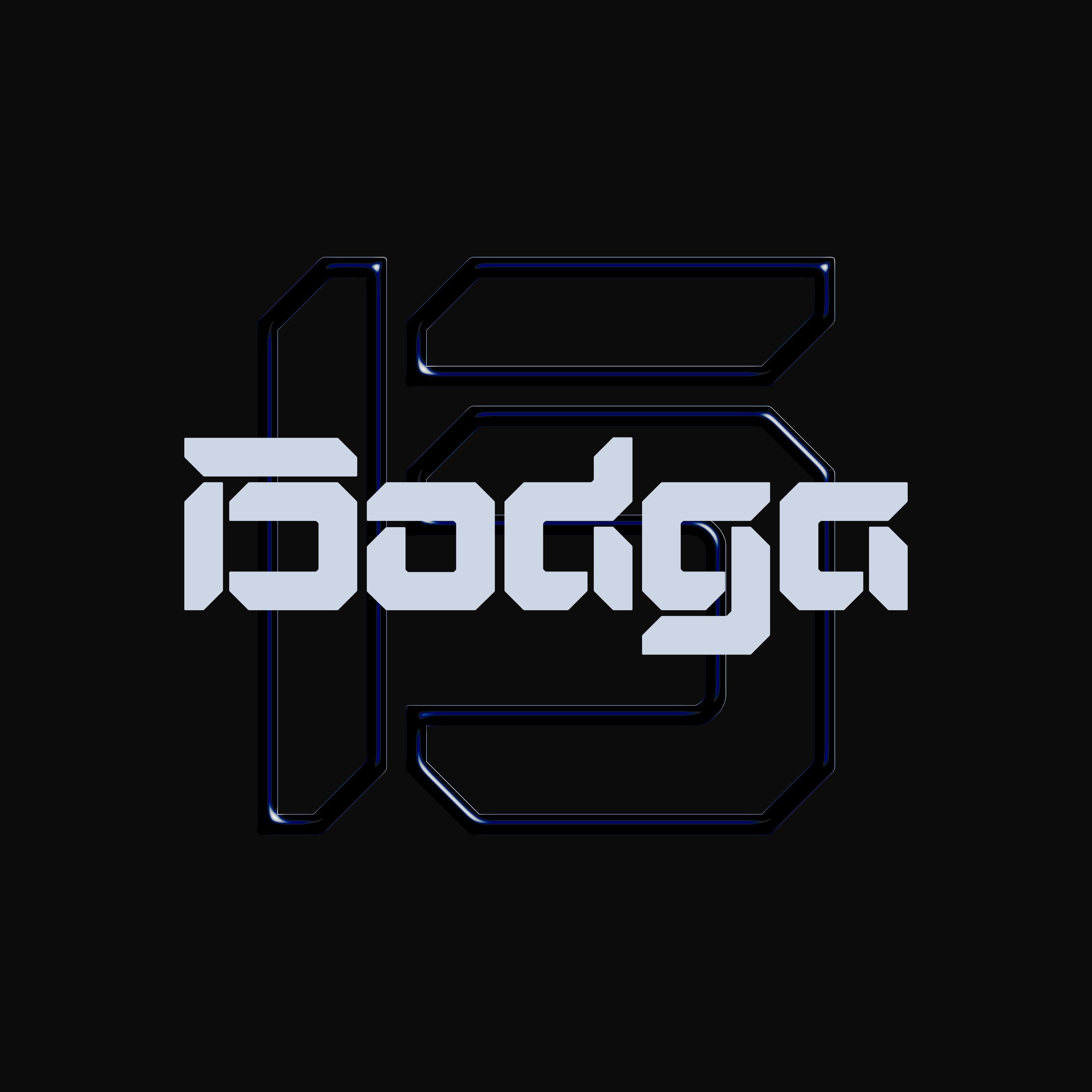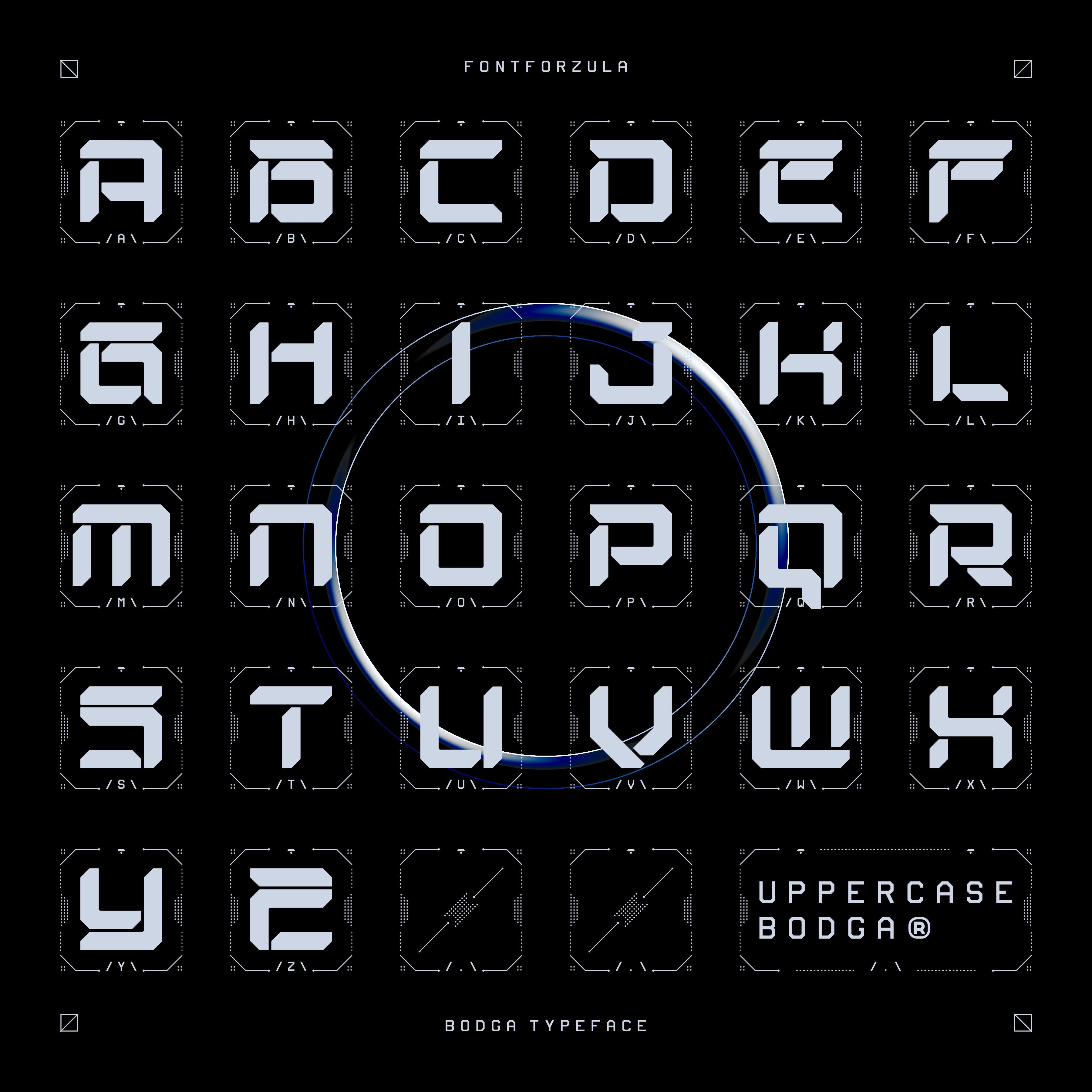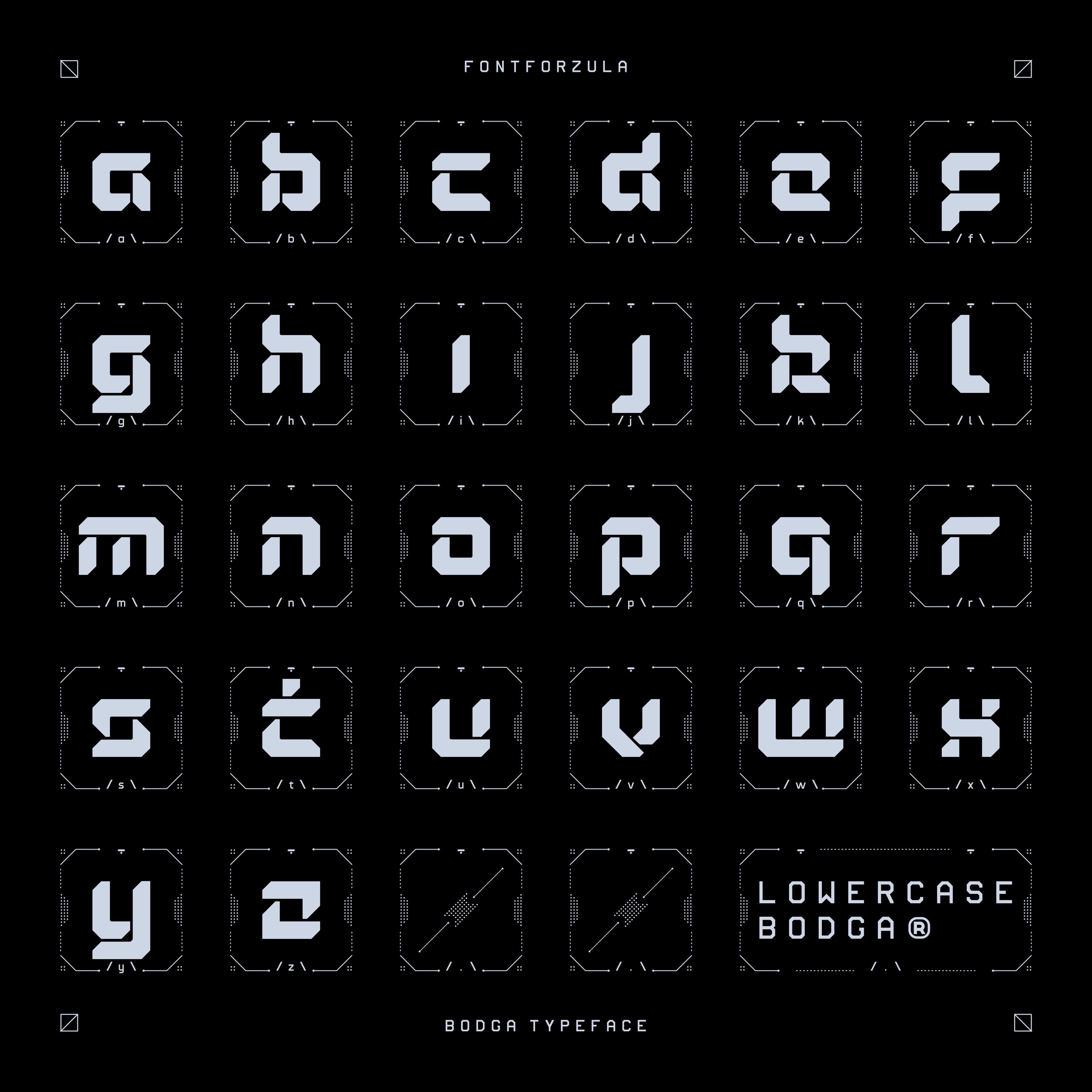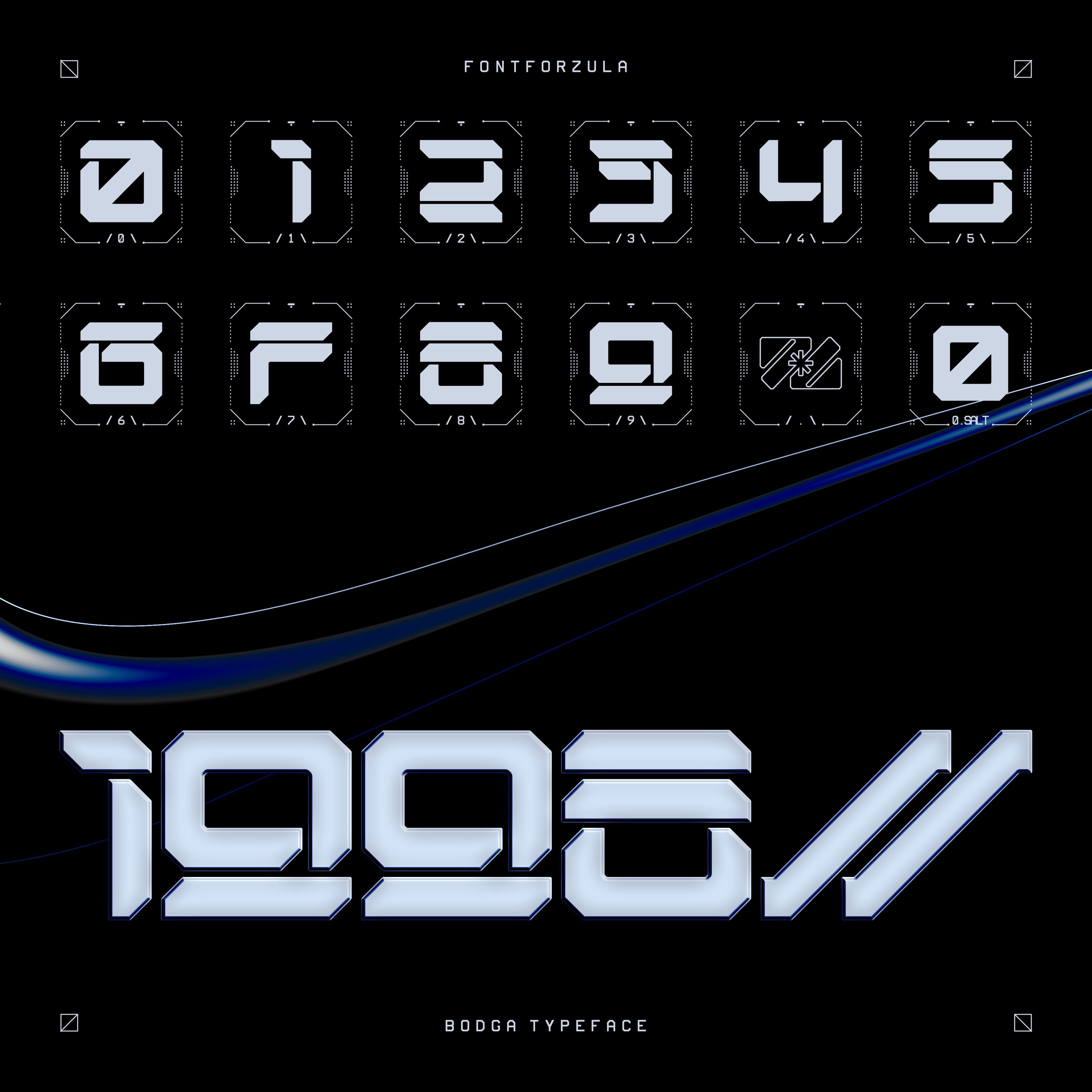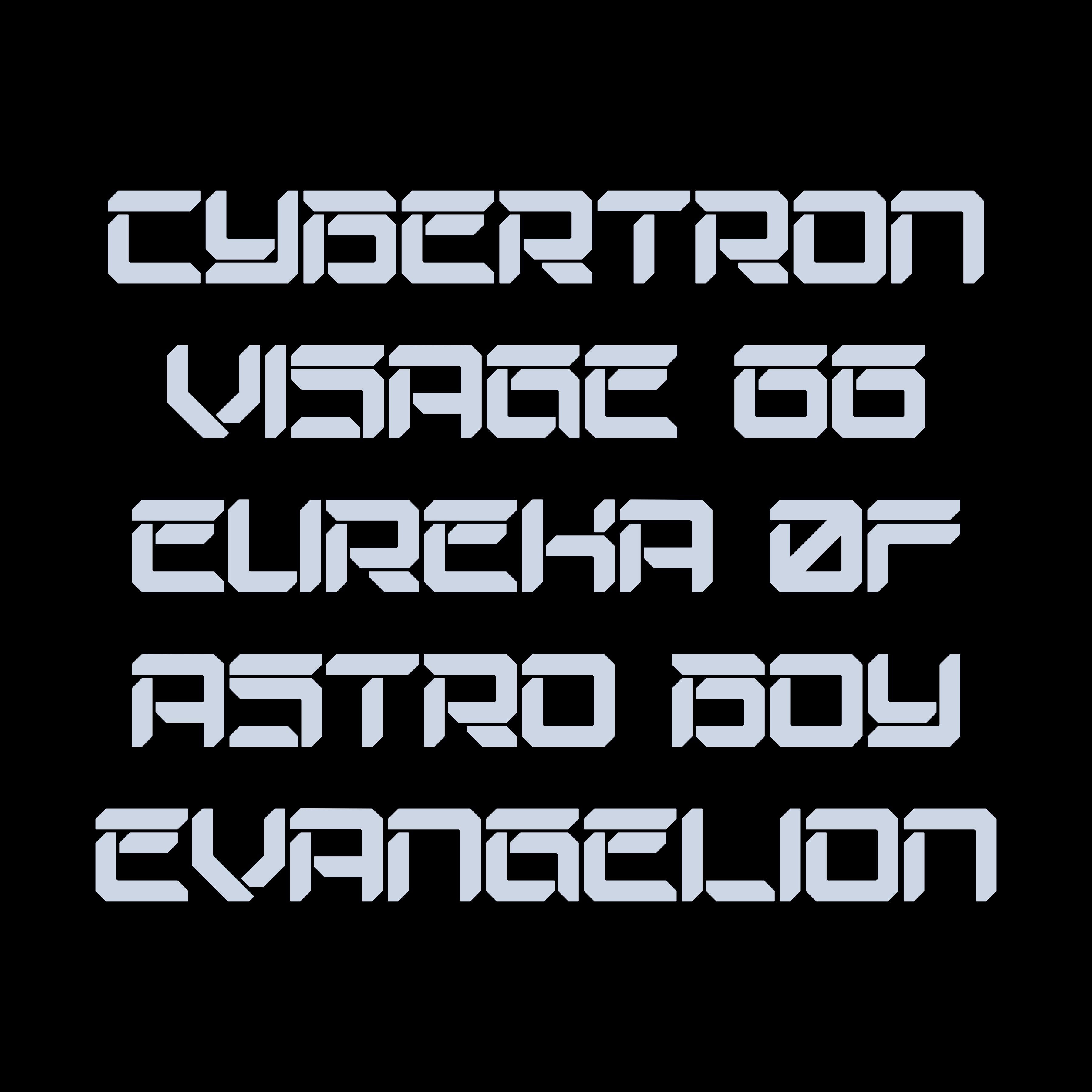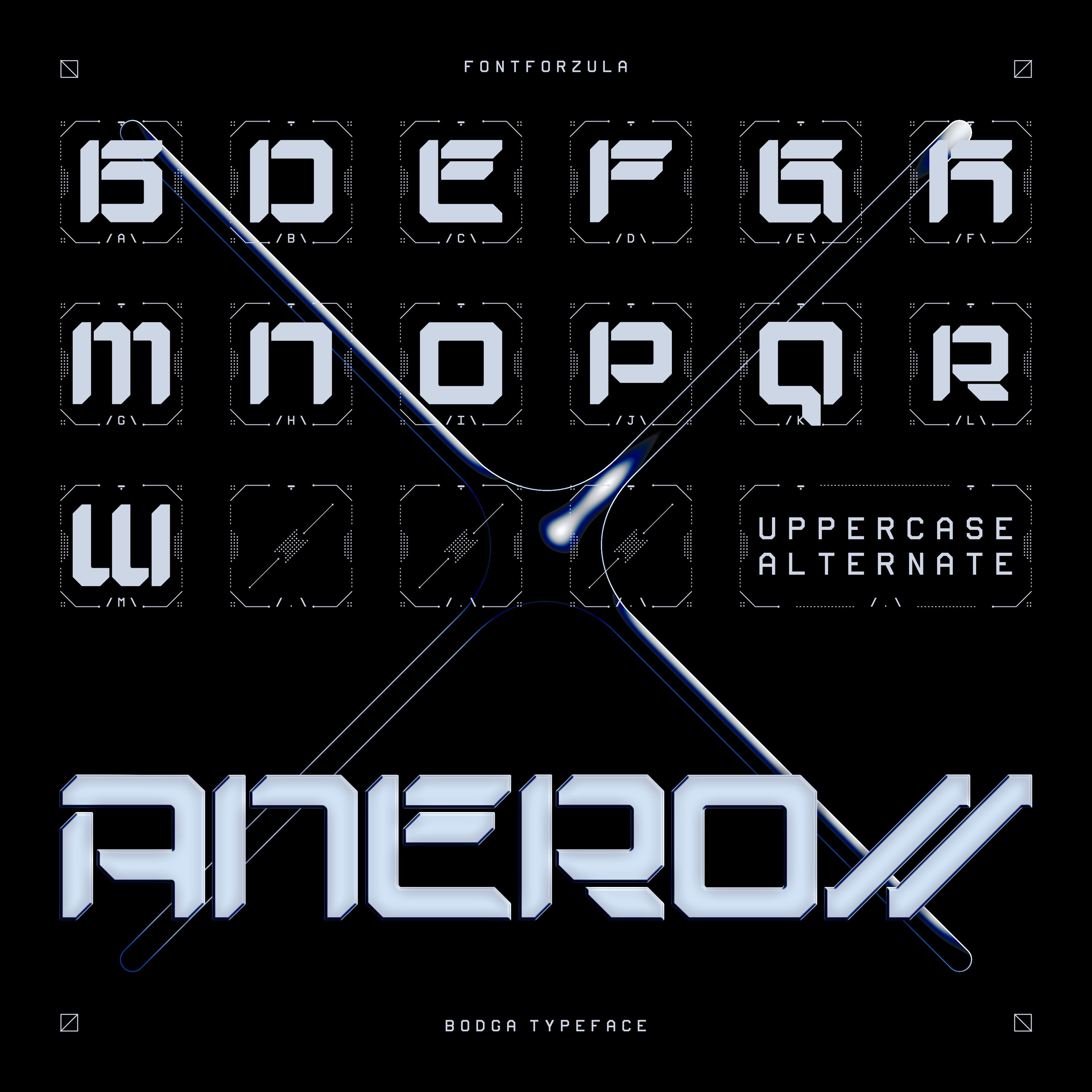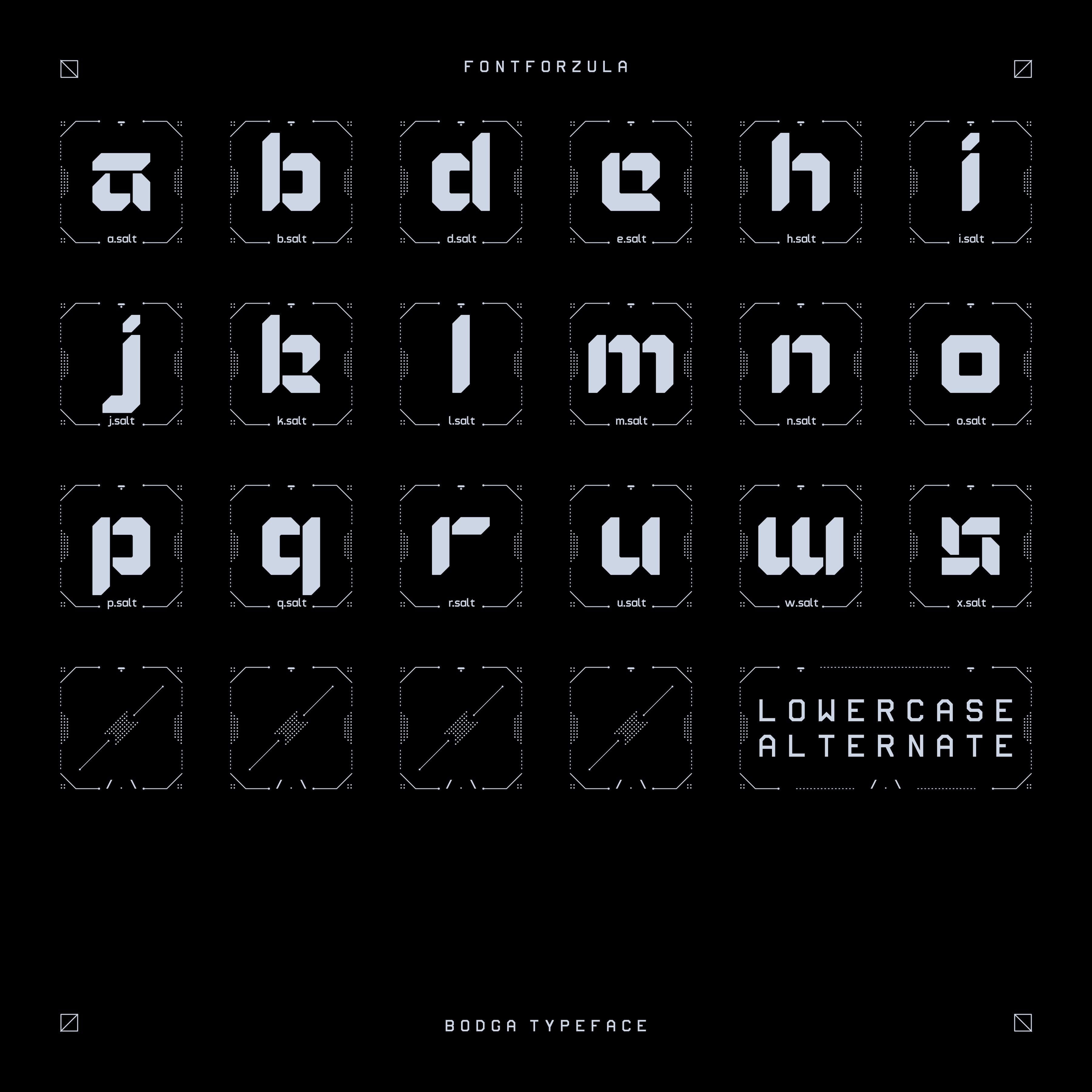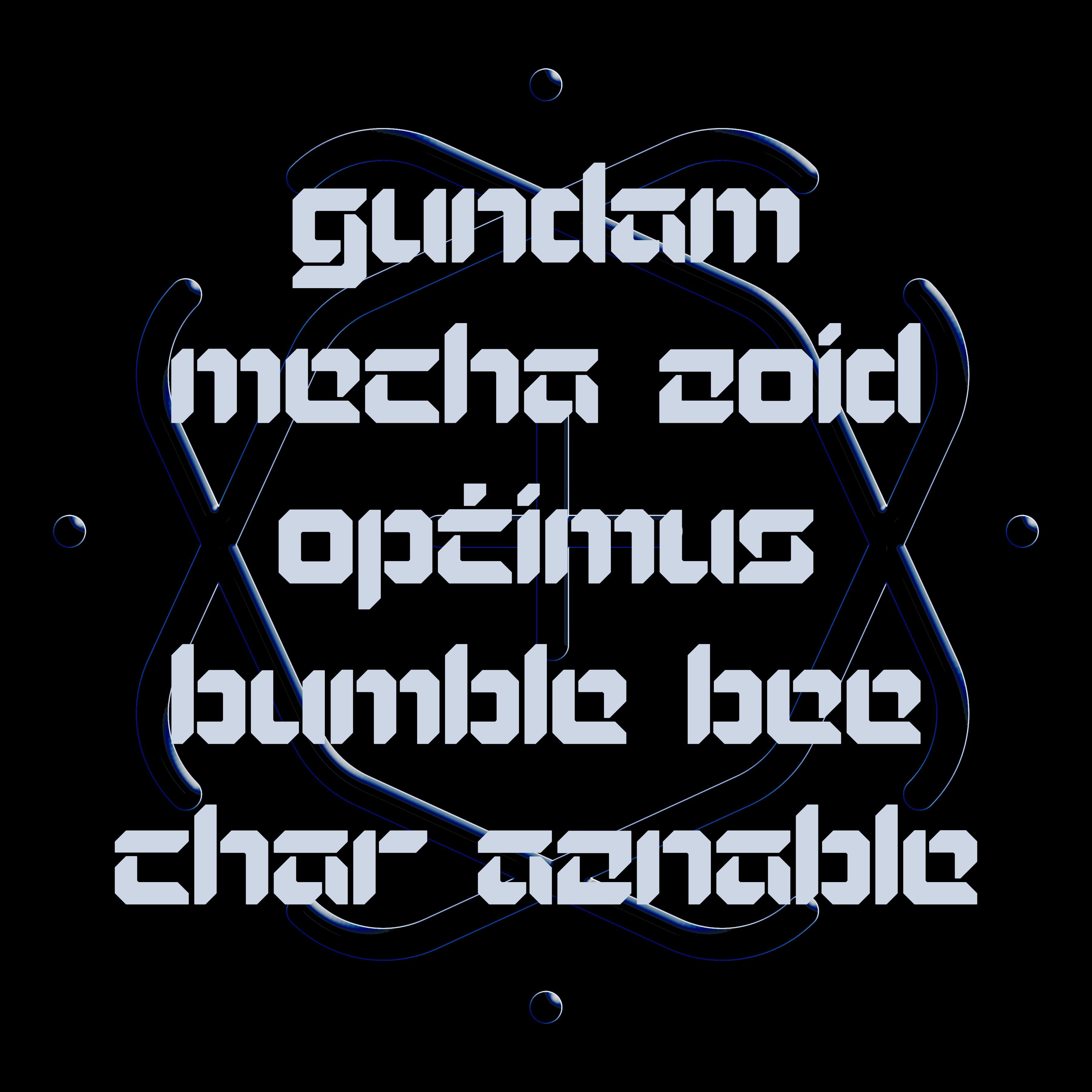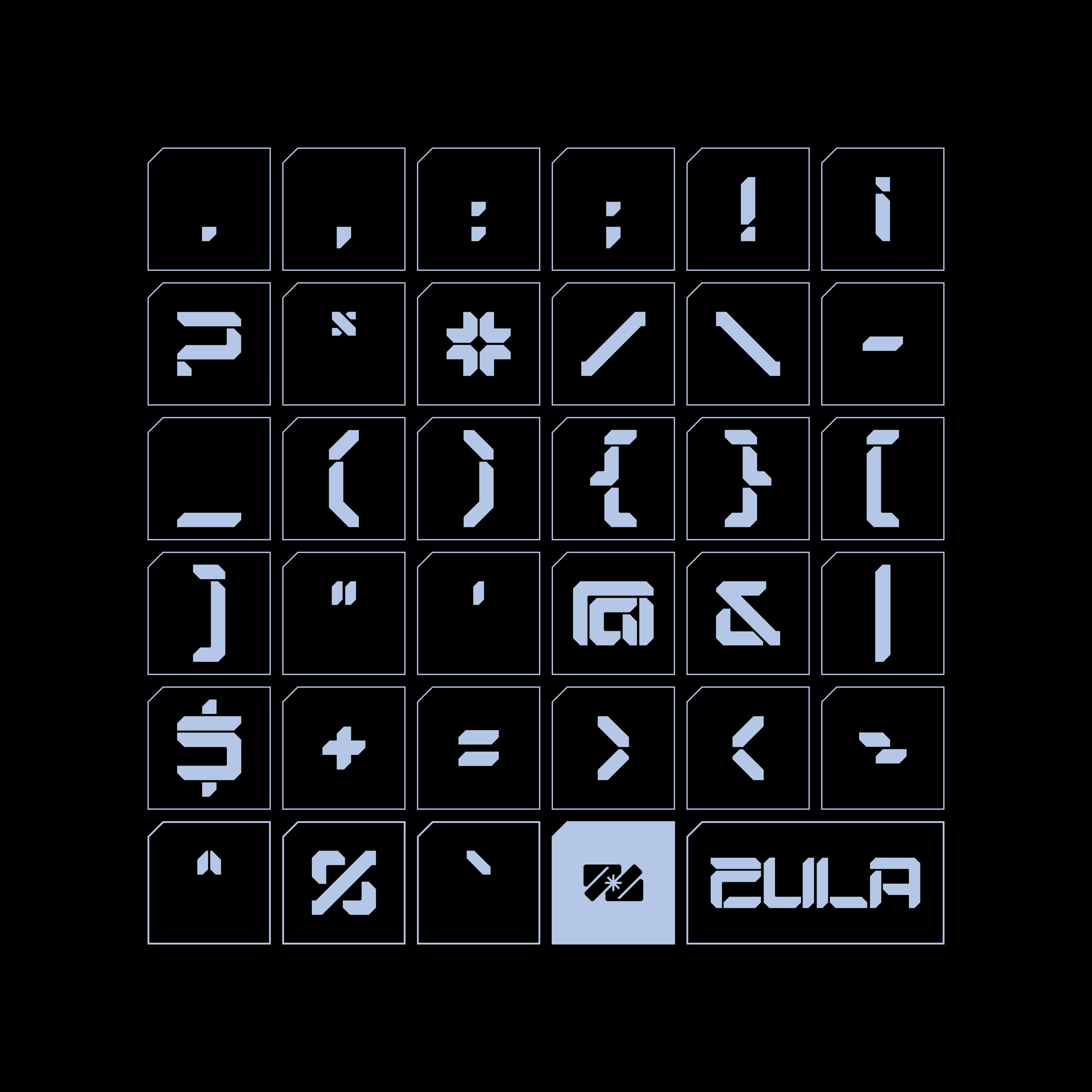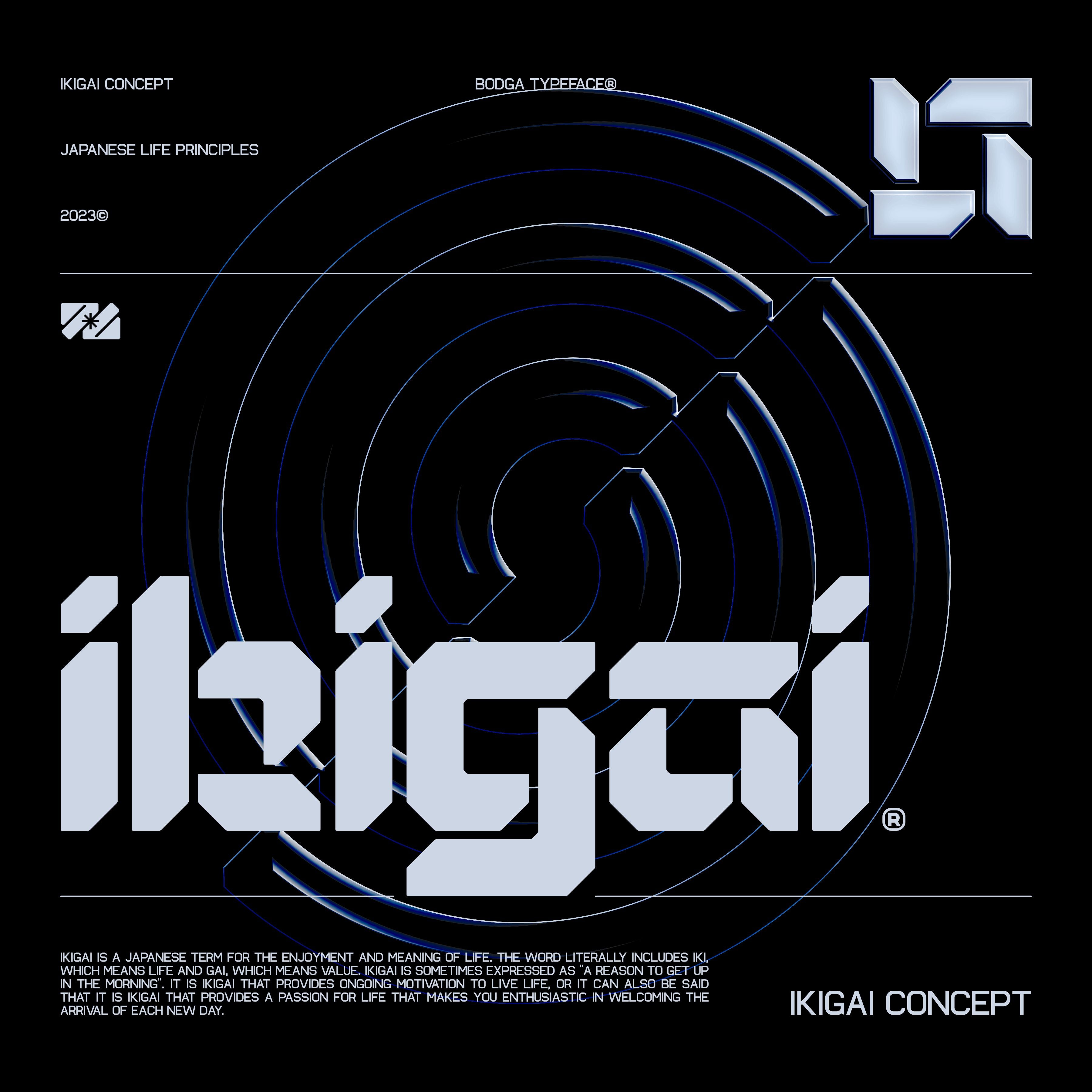
BODGA 書体
The BODGA Typeface is a futuristic font ideal for various projects. It includes 26 uppercase and lowercase letters, 13 uppercase and 18 lowercase alternates, 10 numerals, 1 numeral alternate, and punctuation.
Ideal for futuristic and cyberpunk design projects. Perfect for apparel, posters, branding, and websites, ensuring a modern, tech-inspired aesthetic that captivates audiences.